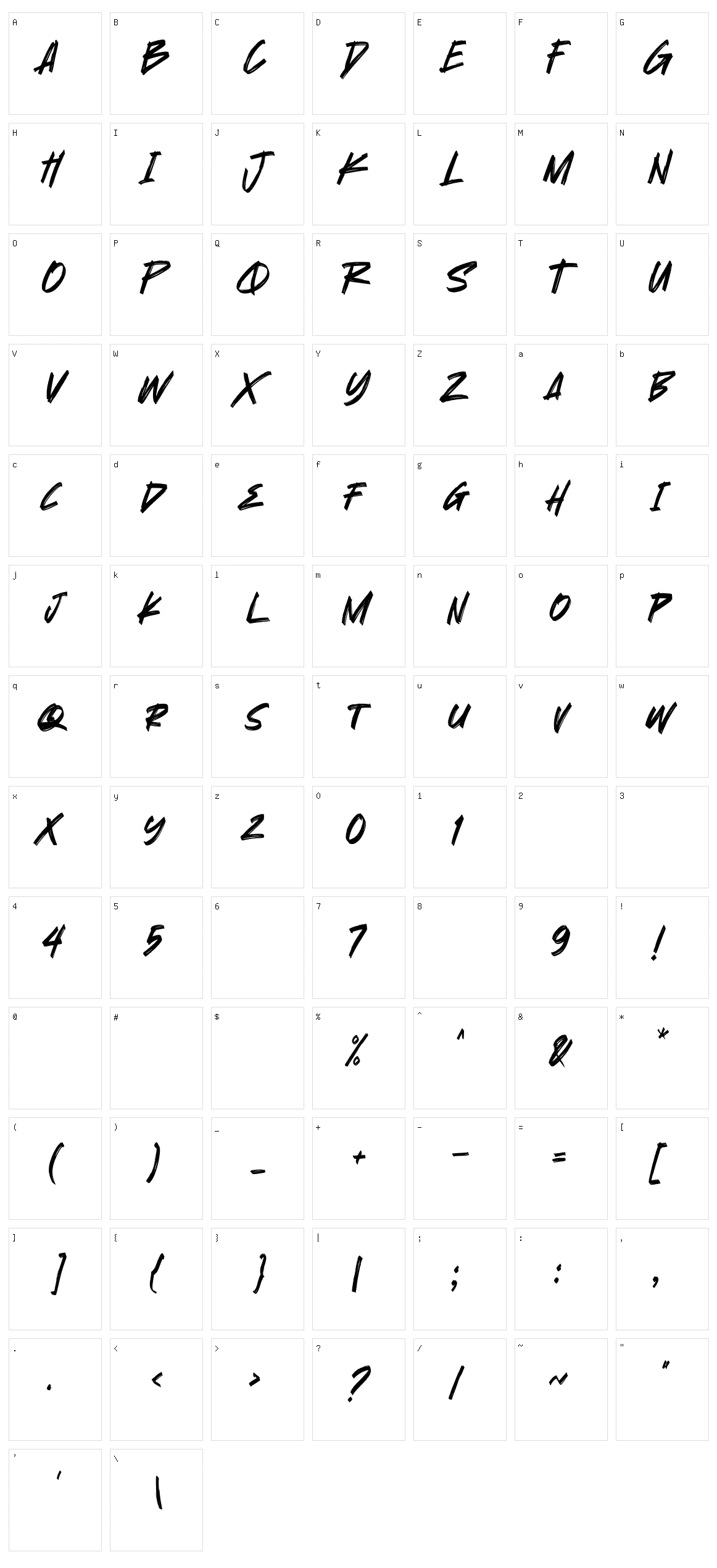
The free font Innoxious is carefully designed by Gassstype, showcasing a thoughtful balance of creativity and usability and falls under the Script font style. When you download the ZIP file, it contains only 1004.36 KB of font files, making it lightweight and quick to download. Please review the license details below to understand permitted usage and distribution rights. If license information is not available, we recommend using this font for personal projects only or contacting the author directly for commercial usage permissions.